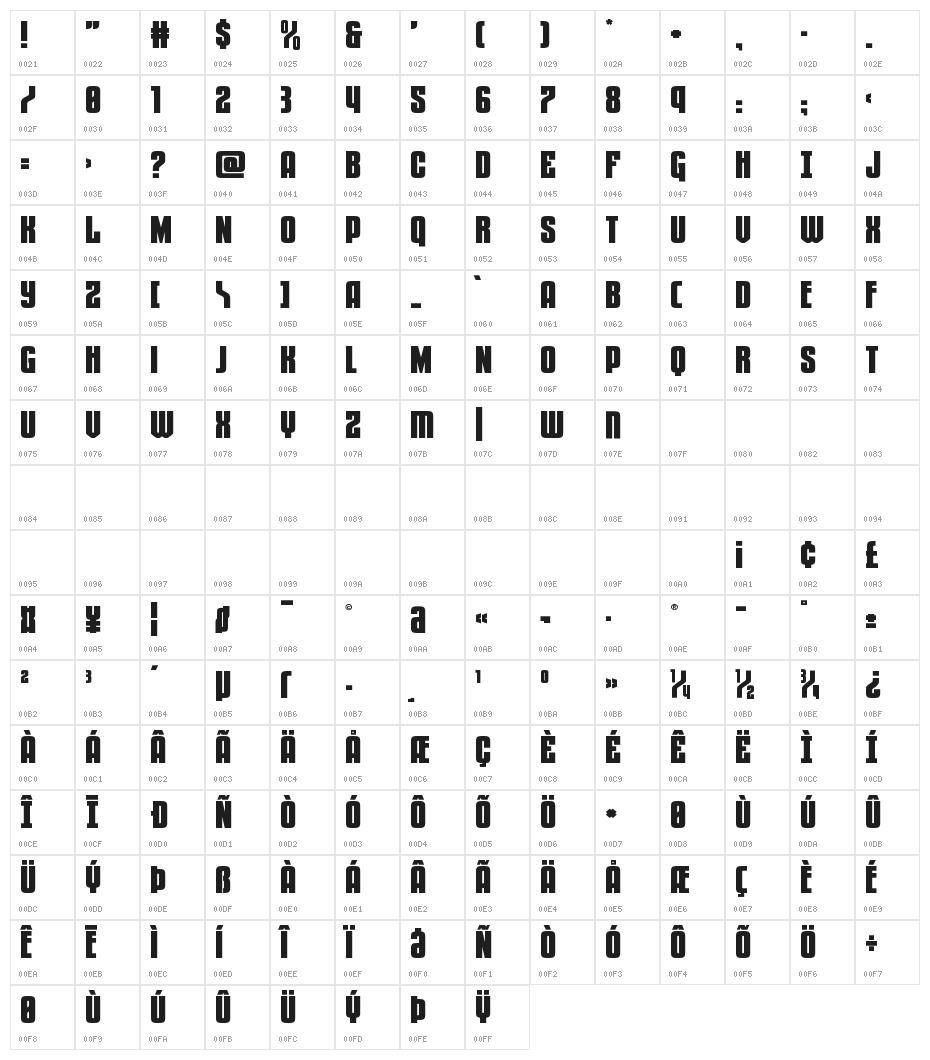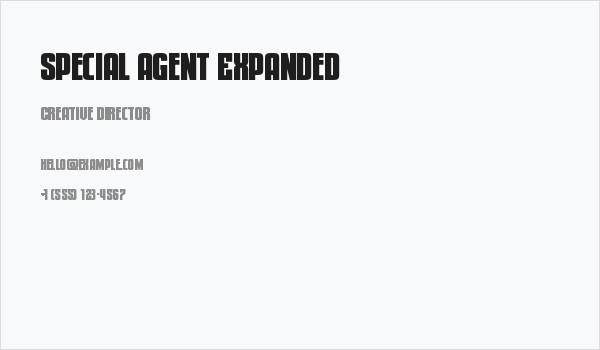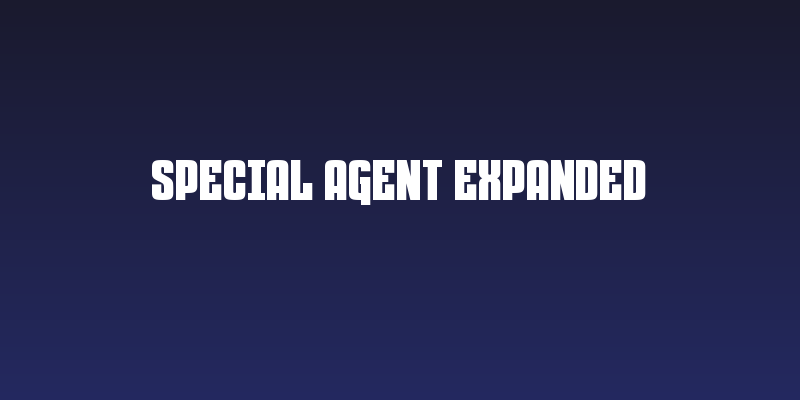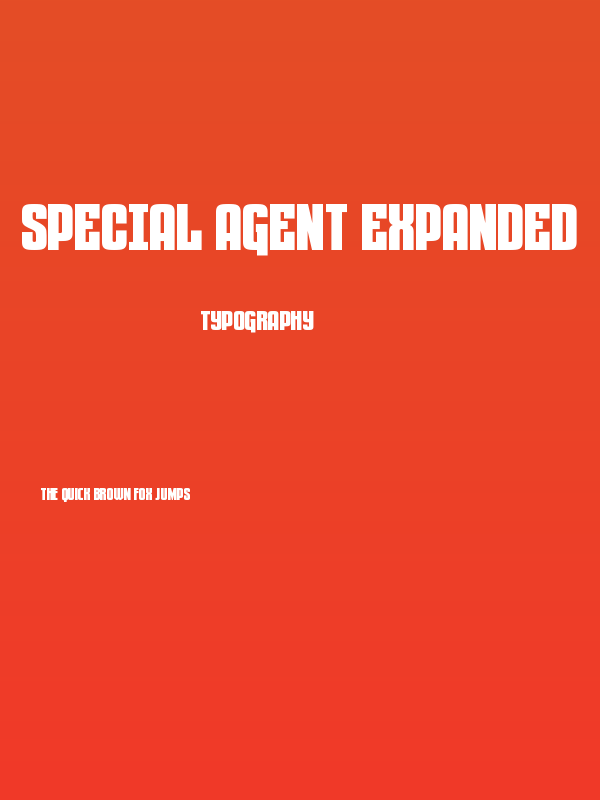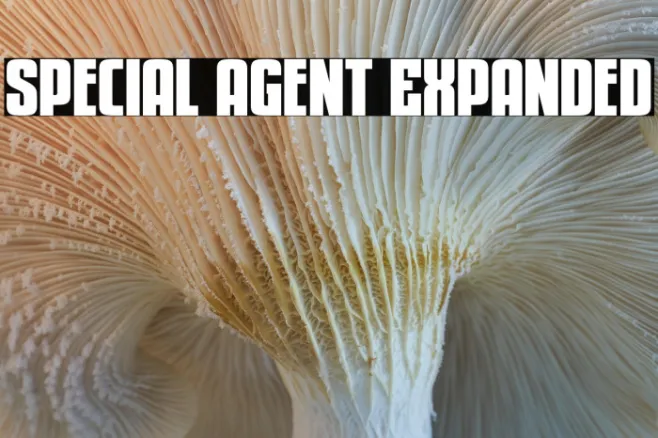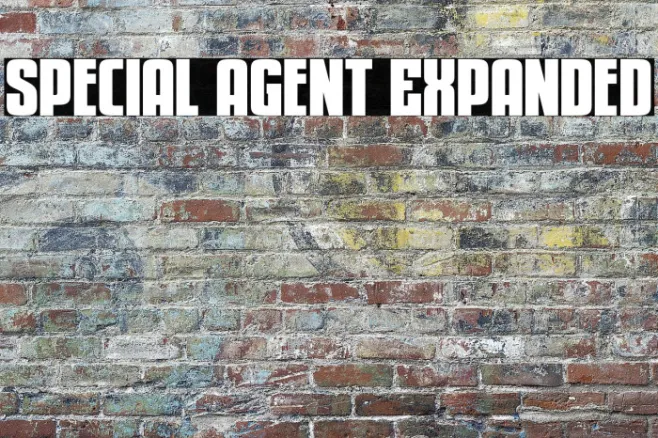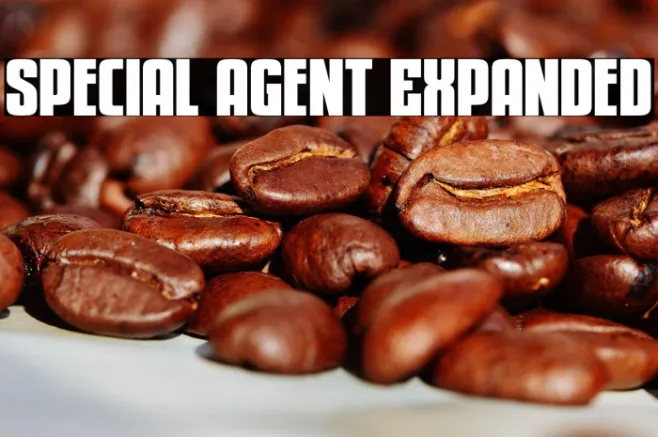
Special Agent Expanded Font
Special Agent Expanded Description
This font features bold, blocky characters with a strong presence, making it ideal for impactful headlines and attention-grabbing designs. The uppercase letters are uniform in height, with a consistent stroke width that conveys a sense of strength and stability. The numerals and special characters maintain the same bold style, ensuring a cohesive look across all text elements. Its expanded width allows for a commanding appearance, suitable for projects that require a bold statement.
| Proposed Projects | Ideal for posters, banners, branding materials, and any design requiring a bold statement. |